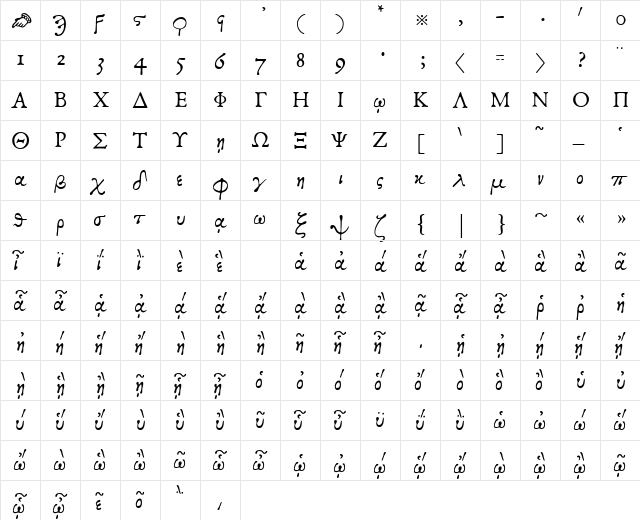
Grecs du roi WG Normal
Design Context for Grecs du roi WG Typeface
Grecs du roi WG takes a measured approach to typography — its balanced proportions and neutral character make it a reliable workhorse for both digital and print work.